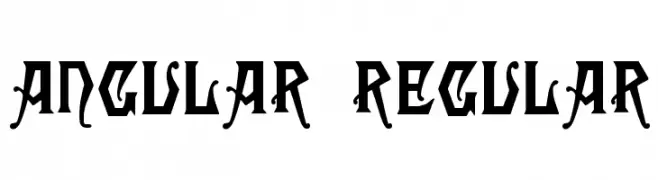
An elegant script font with flowing, cursive letterforms and intricate flourishes.
A tactile writing system using raised dots for visually impaired readers.
A modern, geometric font with high contrast and circular elements.
A bold, Gothic-inspired font with intricate details and angular forms.
A bold, angular font with inline details, perfect for impactful designs.
A bold, angular font with a striking shadow effect for a modern, three-dimensional look.
A bold, angular font with a geometric and futuristic style.
A collection of abstract, circular symbols with bold, modern designs.